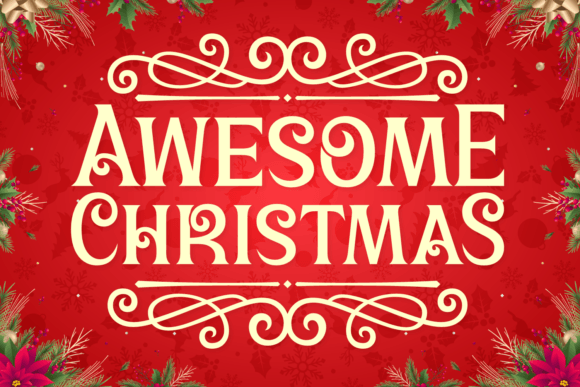
Deck the Halls with Holiday Cheer
As I sit here, sipping hot cocoa and surrounded by twinkling lights, I’m reminded of the magic of the holiday season. There’s something special about the way a well-designed Christmas card or advertisement can capture the spirit of the season. For designers, this means finding the perfect font to evoke that feeling of wonder and joy.
Enter the Awesome Christmas Font, a curly, festive, and charming display font that’s sure to bring a smile to your face. With its PUA encoding, you can access all the glyphs and swashes with ease, making it perfect for wintery-themed designs. And when paired with warm colors, it’s like wrapping your design in a cozy blanket on a cold winter’s night. Whether you’re a seasoned pro or just starting out, the Awesome Christmas Font is a valuable addition to any designer’s toolkit.
Awesome Christmas Font Key Features
- Unique Characteristics: Custom-designed festive ornaments, snowflakes, and holly leaves for added holiday flair
Designer Review: Awesome Christmas Font
Overall, I’d say the Awesome Christmas Font is a fun and playful addition to any holiday project. Here are some of the things that really stood out to me:
- ✨ The font’s bold and festive feel makes it perfect for headings and titles.
- ✨ The various ligatures and swashes add a nice touch of personality to the font.
- ✨ The font is highly customizable, allowing you to adjust everything from the color to the size.
- ⚠️ The font can feel a bit over-the-top or cheesy in certain contexts.
- ⚠️ Some of the ligatures and swashes can be difficult to read in smaller font sizes.
- ⚠️ The font doesn’t come with a lot of additional features or tools, so you’ll need to get creative if you want to use it for anything beyond basic holiday projects.
Overall, I’d say the Awesome Christmas Font is a great choice for anyone looking to add a little holiday cheer to their project. Just be mindful of its limitations and use it in contexts where it will really shine.
Tips for Getting the Most Out of the Awesome Christmas Font
1. Use the font in combination with festive graphics and colors to create a cohesive look.
2. Experiment with different font sizes and styles to add visual interest.
3. Use the font in headings and titles to create a clear hierarchy of information.
1. Christmas card designs
2. Holiday party invitations
3. Gift tags and labels
4. Social media graphics
5. Print ads and flyers
Alternatives to Awesome Christmas Font
Bethlehem Script
Bethlehem Script is a beautiful, handwritten font perfect for adding a touch of elegance to your Christmas designs. It’s ideal for creating invitations, greeting cards, and other paper crafts. Bethlehem Script is a great alternative to Awesome Christmas Font as it offers a more refined and sophisticated look.
Christmas Lights
Christmas Lights is a fun, playful font that’s perfect for creating festive and energetic designs. It’s ideal for social media graphics, advertisements, and other promotional materials. Christmas Lights is a great alternative to Awesome Christmas Font as it offers a more modern and edgy look.
Rockwell Christmas
Rockwell Christmas is a classic, serif font that’s perfect for creating traditional and timeless Christmas designs. It’s ideal for creating logo designs, posters, and other promotional materials. Rockwell Christmas is a great alternative to Awesome Christmas Font as it offers a more classic and sophisticated look.
Great Vibes is a beautiful, script font that’s perfect for creating elegant and sophisticated Christmas designs. It’s ideal for creating invitations, greeting cards, and other paper crafts. Great Vibes is a great alternative to Awesome Christmas Font as it offers a more refined and luxurious look.